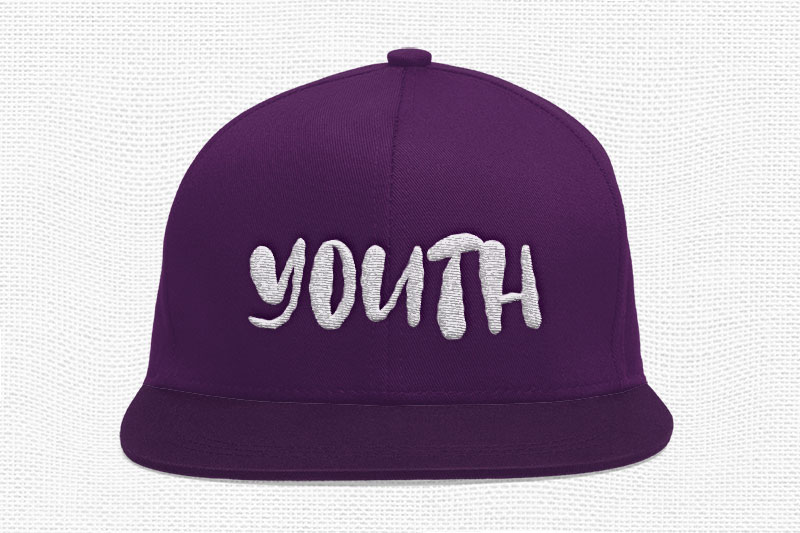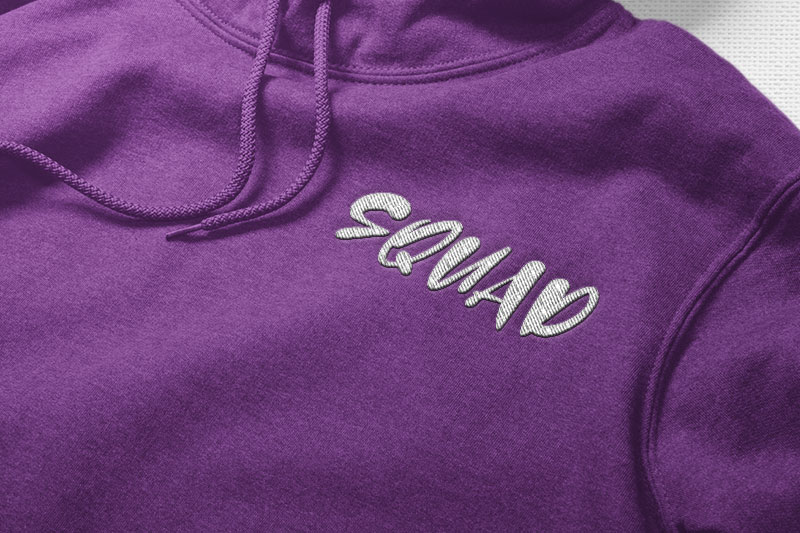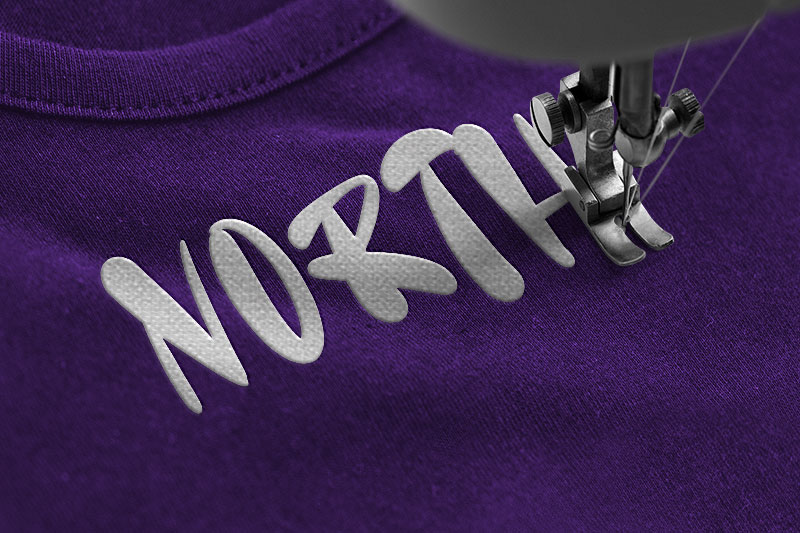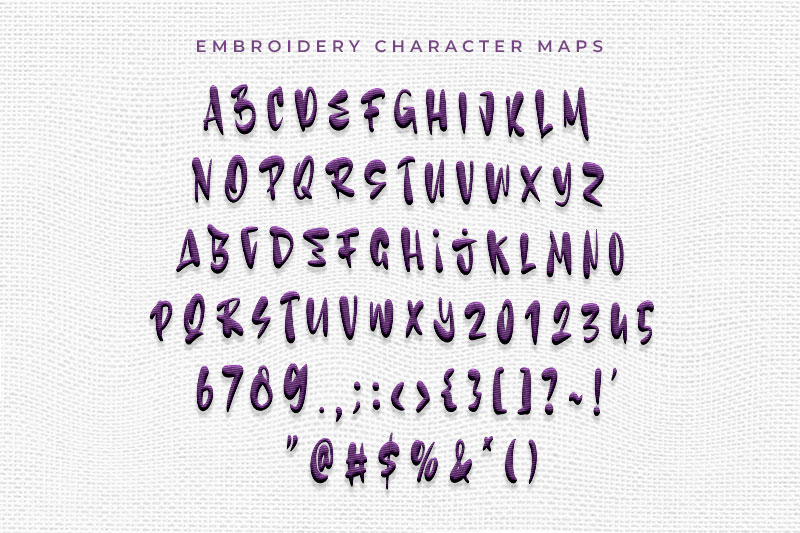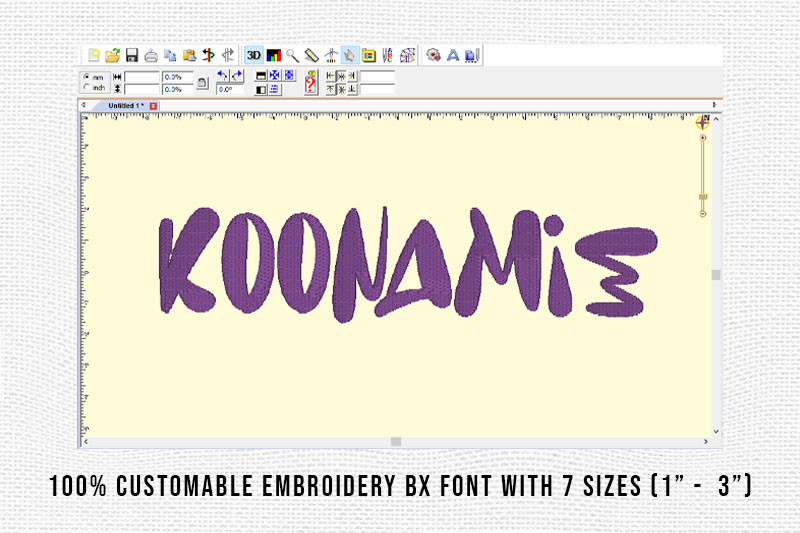
Embroidery Font provides a wide selection of font types that have interesting characteristics. This time Koonamie Embroidery Font is one of the best choices among other fonts. This font uncovered strokes giving an aesthetic and modern impression. With unique characteristics, Koonamie Embroidery Font is still relatively easy to distinguish between letters.
Seeing the explanation, Koonamie Embroidery Font is legible. This font is suitable for embroider in both large and small sizes. It will be obvious, as long as it is not filled with excessive ornamentation. When Koonamie Embroidery Font stands alone, it already has artistic value and looks attractive.
Koonamie Embroidery Font is a typeface that is well-suited for writing on modern equipment. Koonamie Embroidery Font is looks good in the t-shirt, hat, and others. In its application, Koonamie Embroidery Font can choose various font sizes and the appropriate file types.